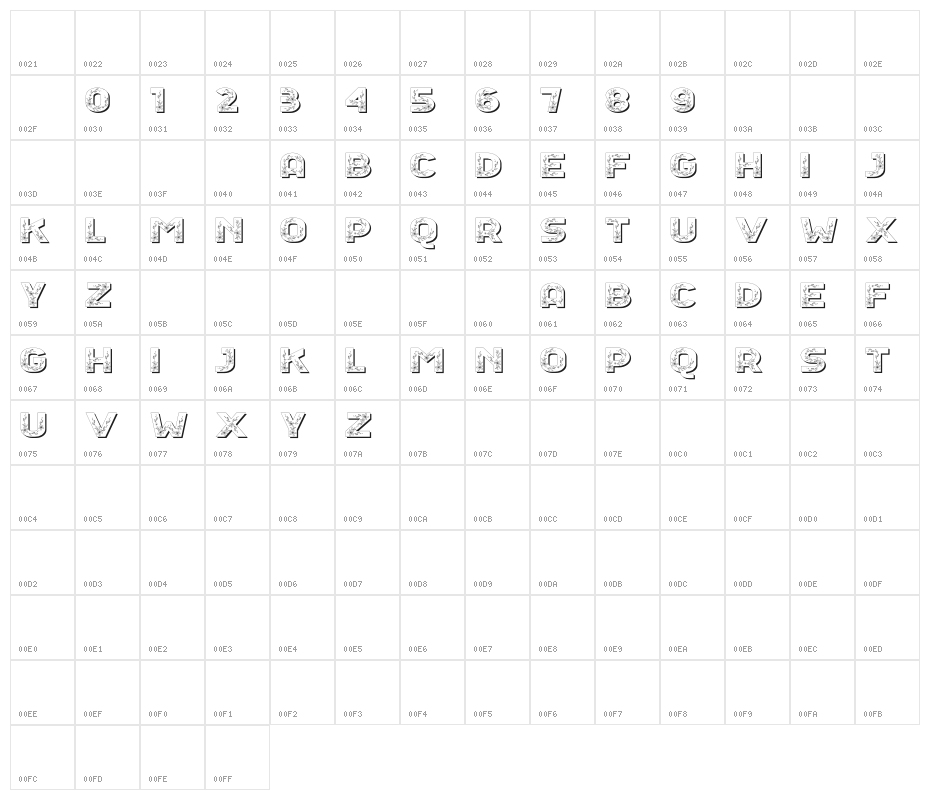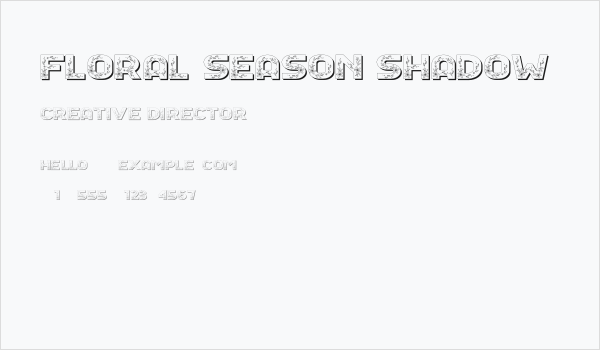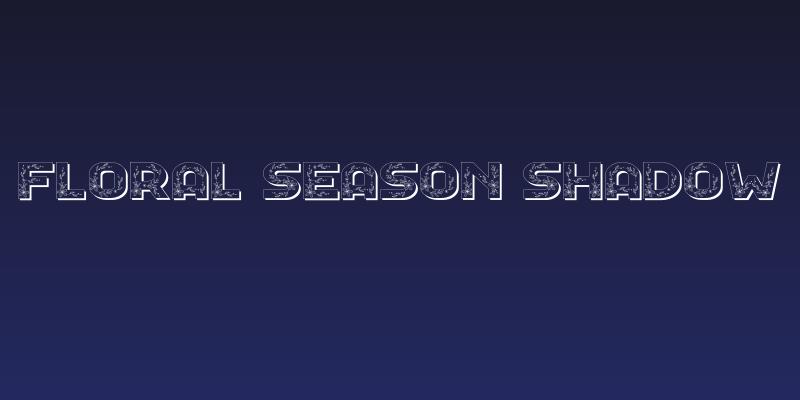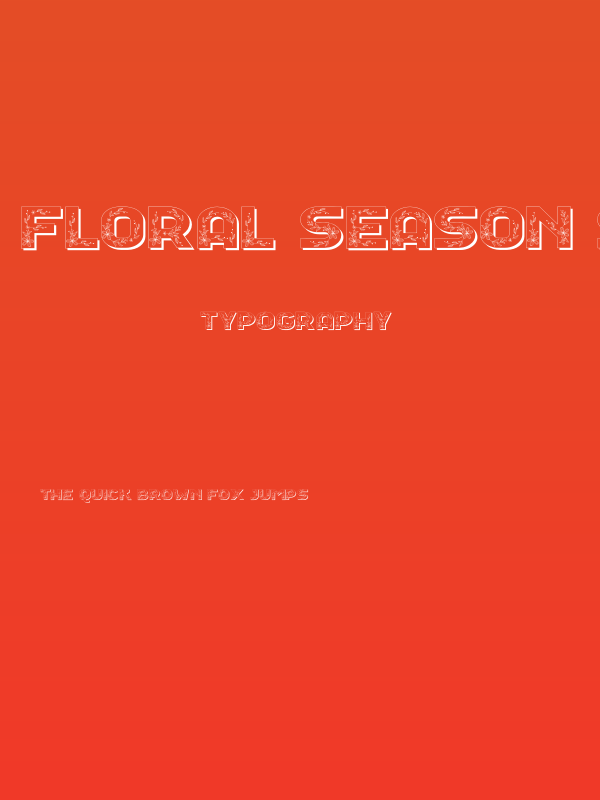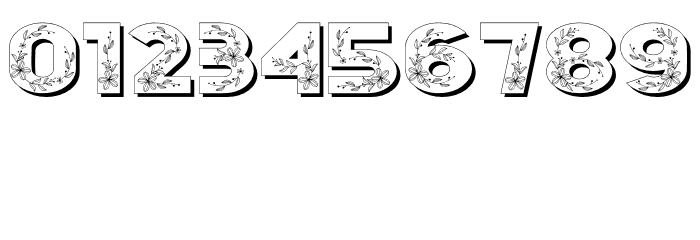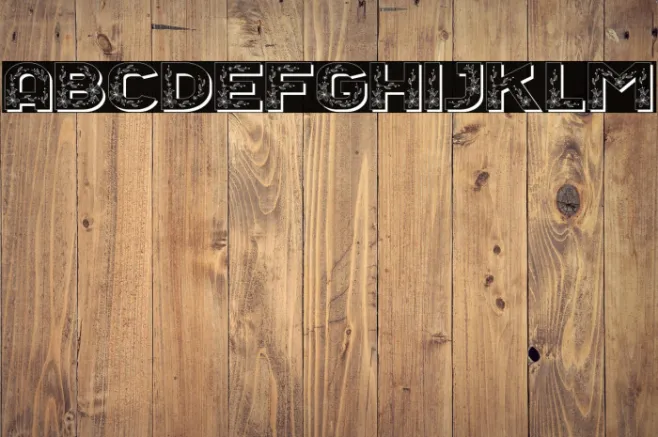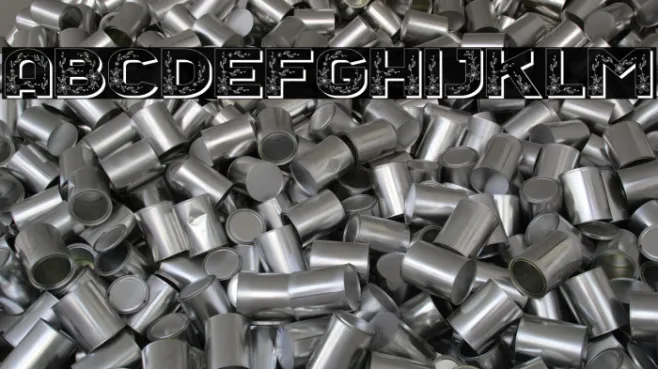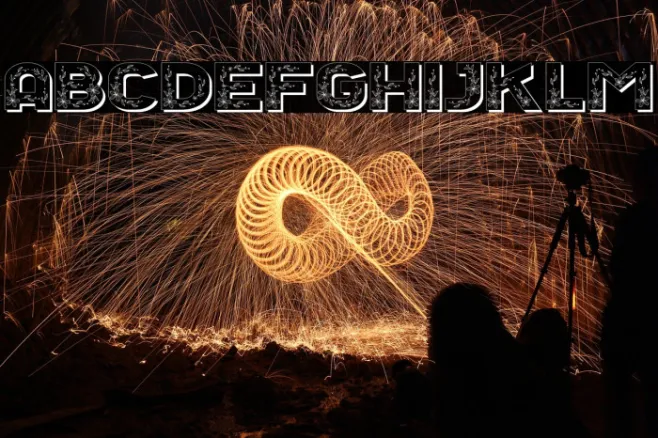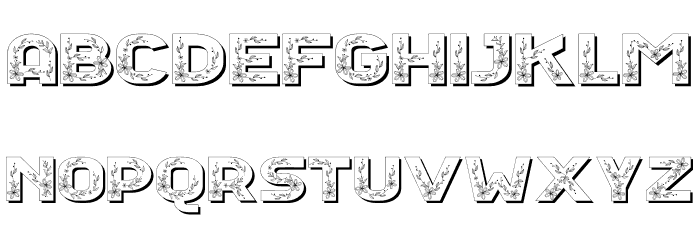
Floral Season Shadow Font
Floral Season Shadow Description
This decorative font features a unique floral design within each character, creating a visually engaging and artistic appearance. The letters are bold and uppercase, with intricate floral patterns that add a touch of elegance and creativity. The shadow effect enhances the three-dimensional look, making the characters stand out. This font is ideal for projects that require a blend of nature-inspired aesthetics and bold typography. The floral elements are detailed and seamlessly integrated into the letterforms, providing a harmonious balance between the natural motifs and the structured shapes of the characters.
| Proposed Projects | Ideal for wedding invitations, greeting cards, posters, and branding projects that require a natural and artistic touch. |